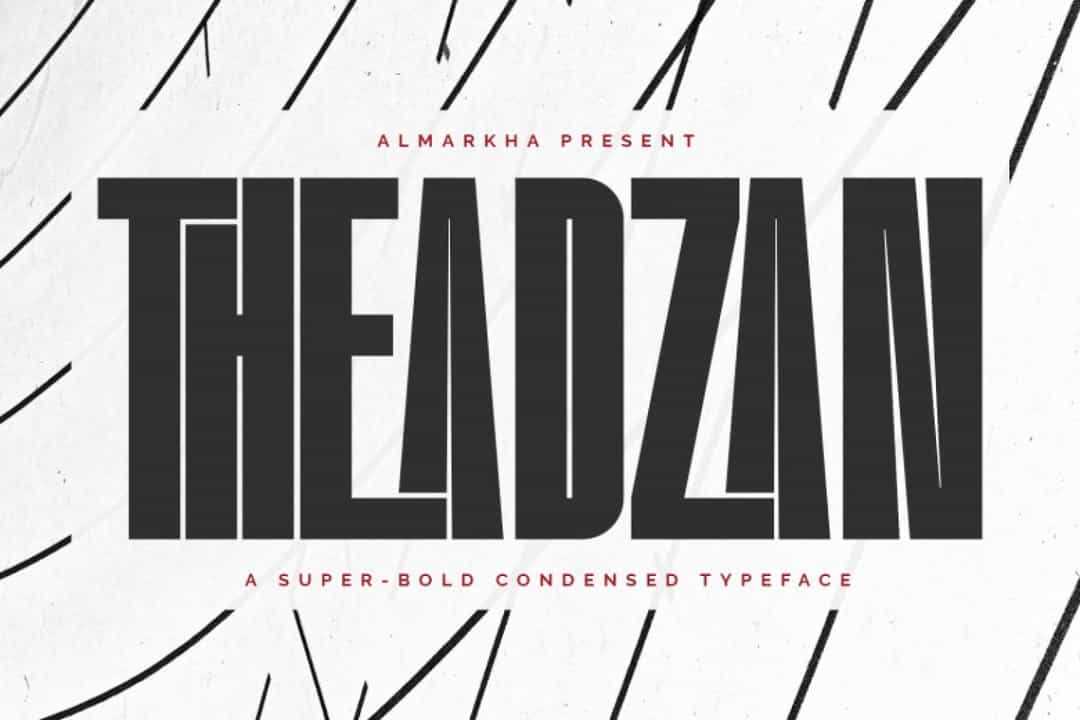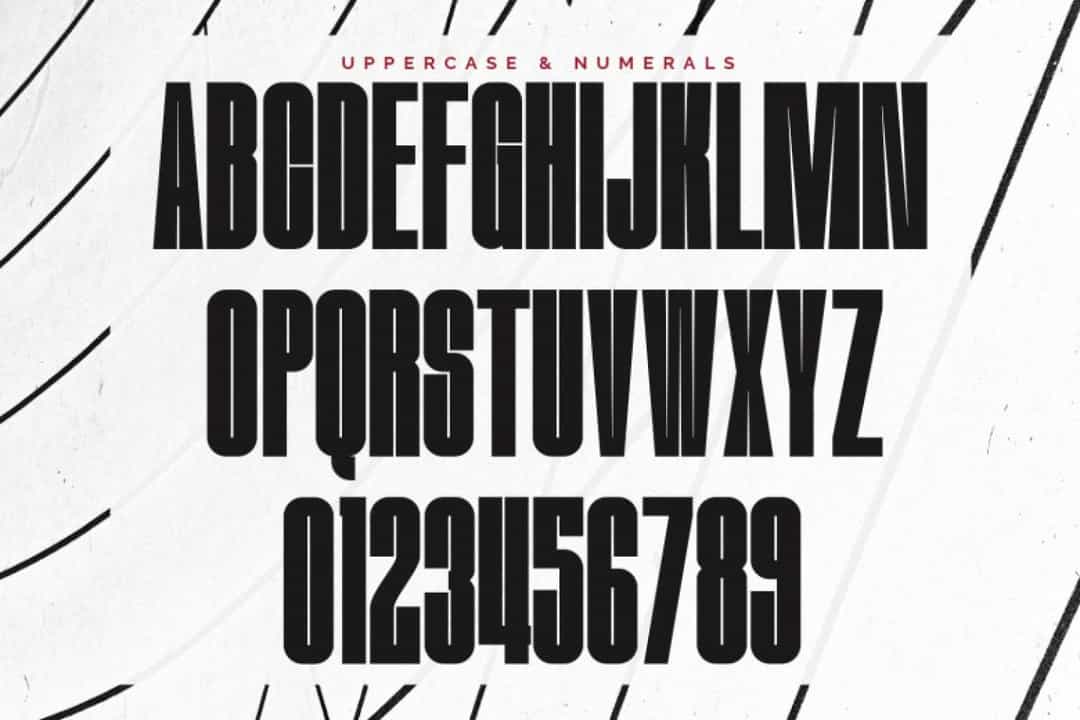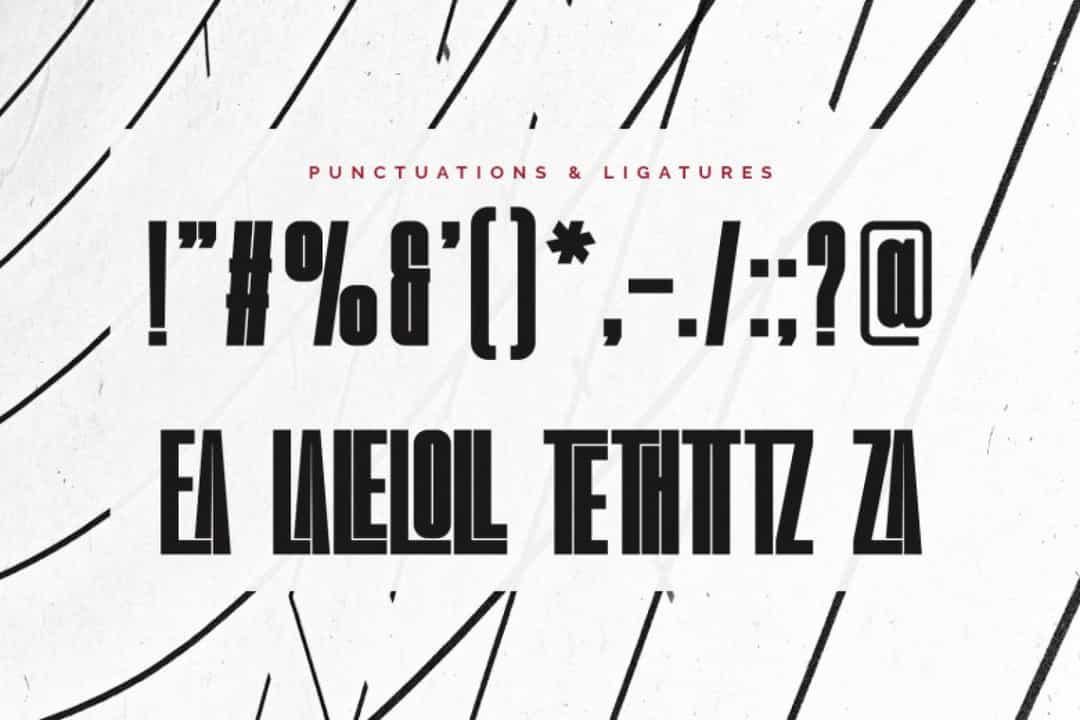
Theadzan Sans Serif Font – Super Bold Condensed is inspired by the name of sports posters. We create it with lots of energy and take great care to consider density and thickness in creating each gliph, along with adding a ligature which creates its signature look – Thadzan font with strong variations!